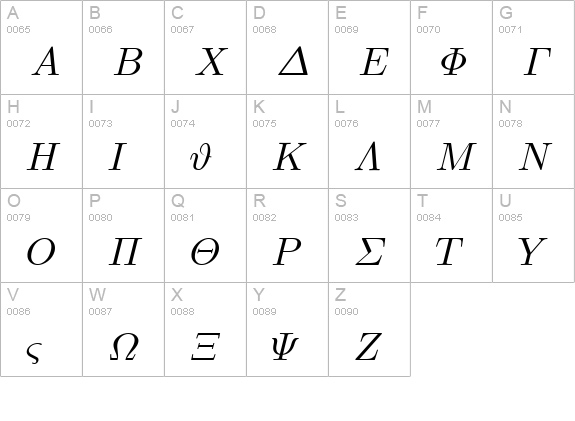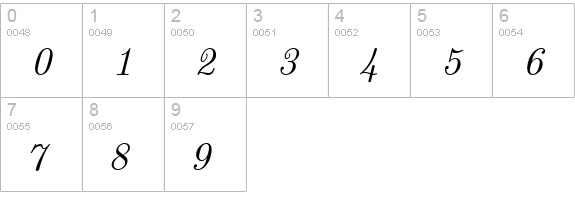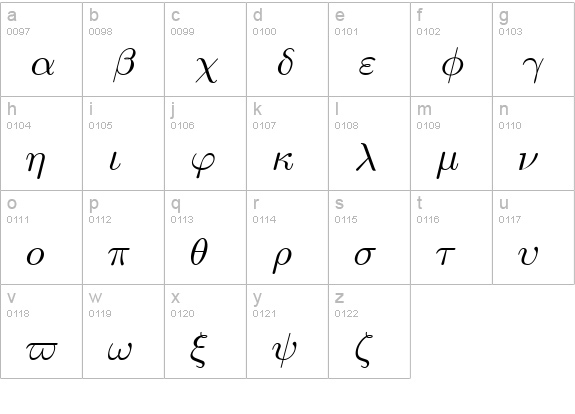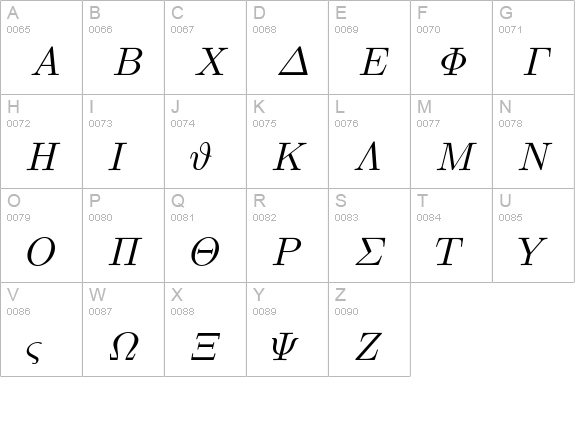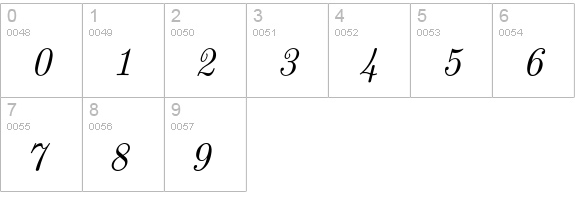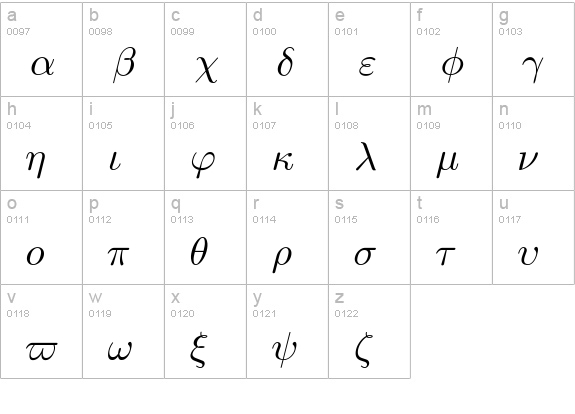
Euclid Symbol Italic Font Details
Euclid Symbol Italic is a distinctive, italic variant in the Euclid typeface family \xE2\x80\x94 well suited to design and typography projects.
The Euclid Symbol Italic font is a sleek and sophisticated typeface that exudes elegance and modernity. Its clean lines and subtle curves make it perfect for adding a touch of sophistication to any design project. Whether you're creating a logo, a poster, or a website, this font will elevate your work to the next level. What sets Euclid Symbol Italic apart is its versatility and readability. It is easy on the eyes and can be used in a variety of contexts without losing its impact. The italic styling adds a touch of flair and personality, making it a standout choice for designers looking to make a statement. Best of all, Euclid Symbol Italic is available for free download at FontsMarket.com. This means you can start using this beautiful font in your projects right away, without having to worry about any additional costs. Don't miss out on this amazing opportunity to enhance your designs with the Euclid Symbol Italic font.